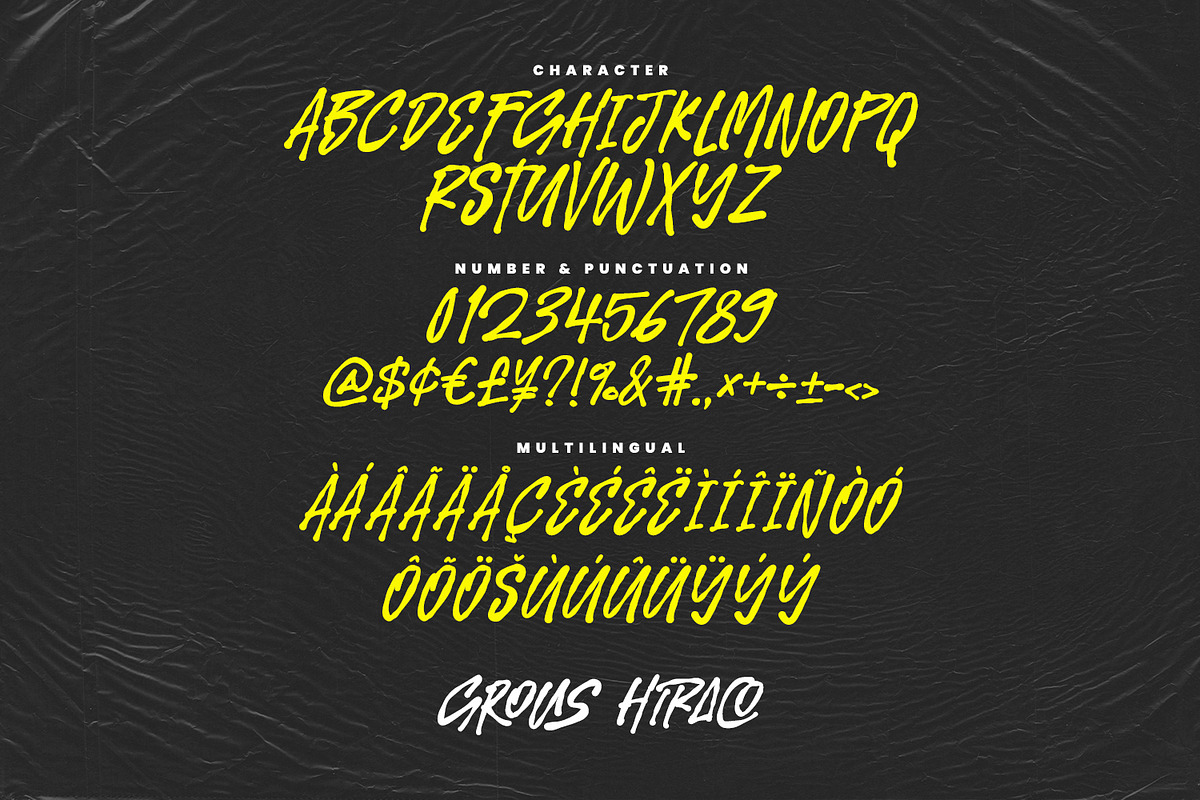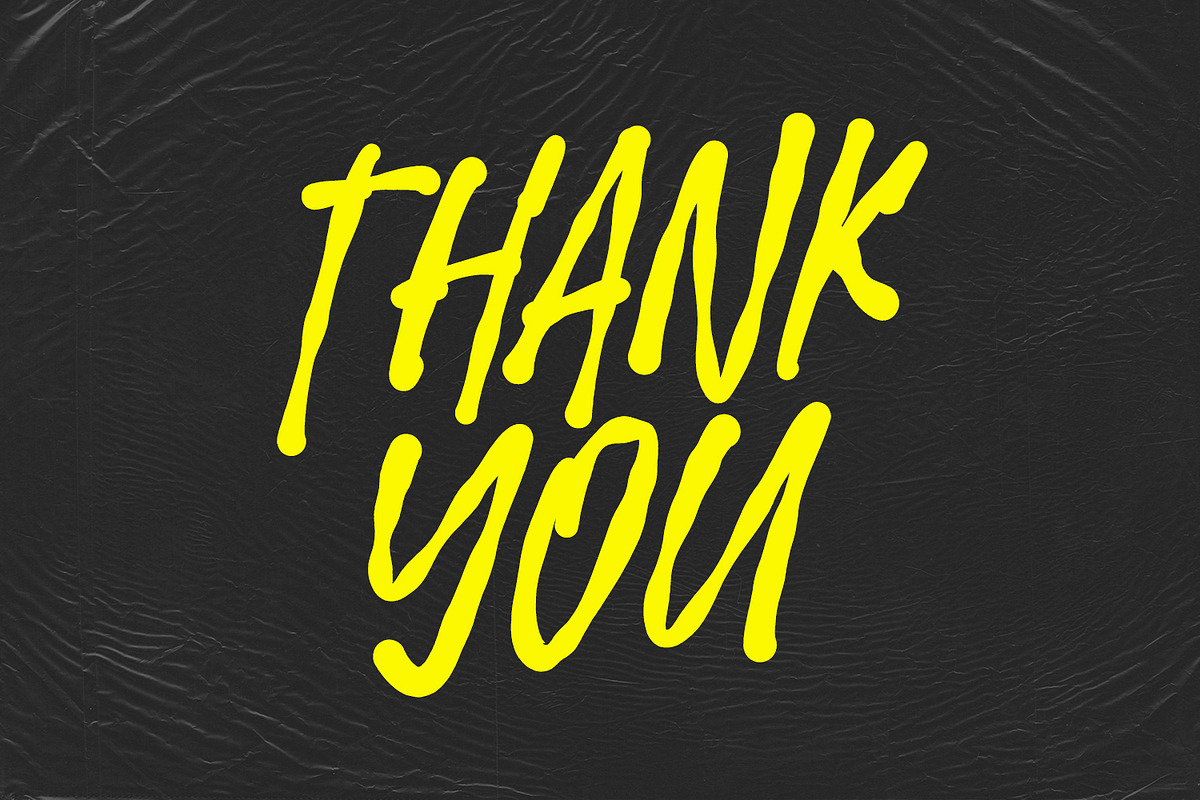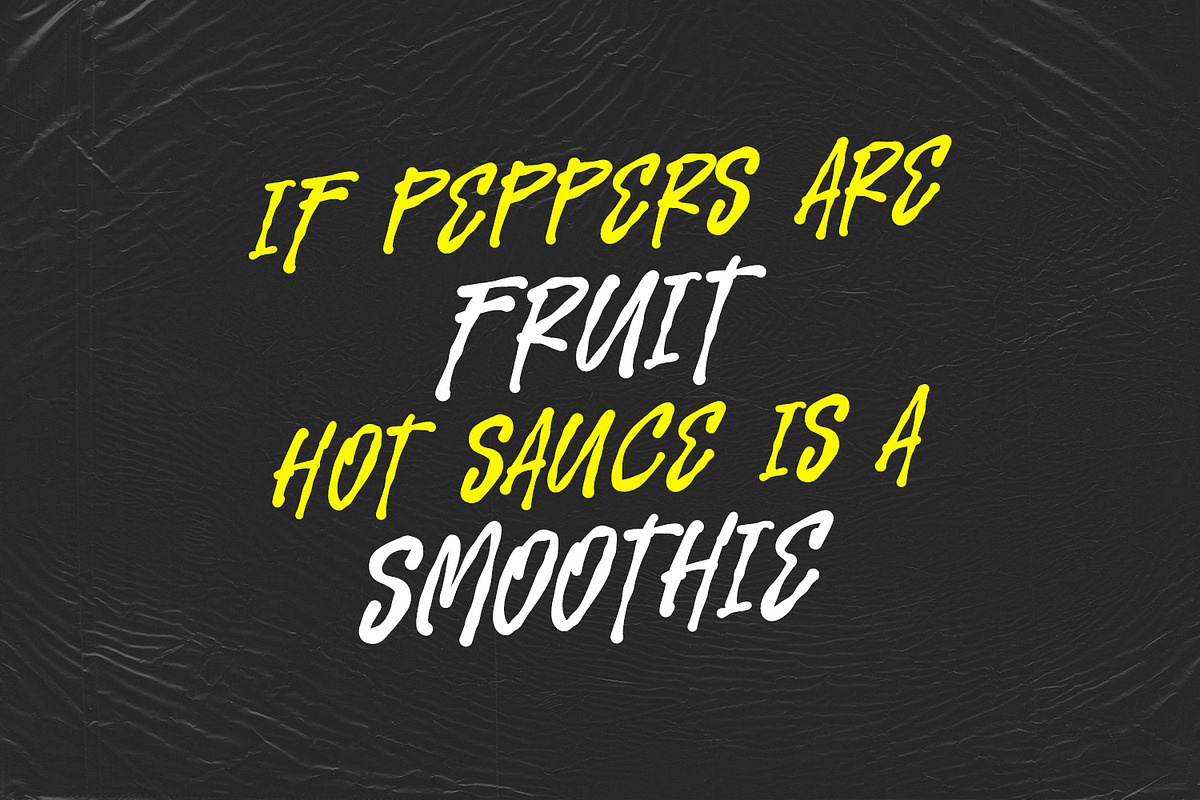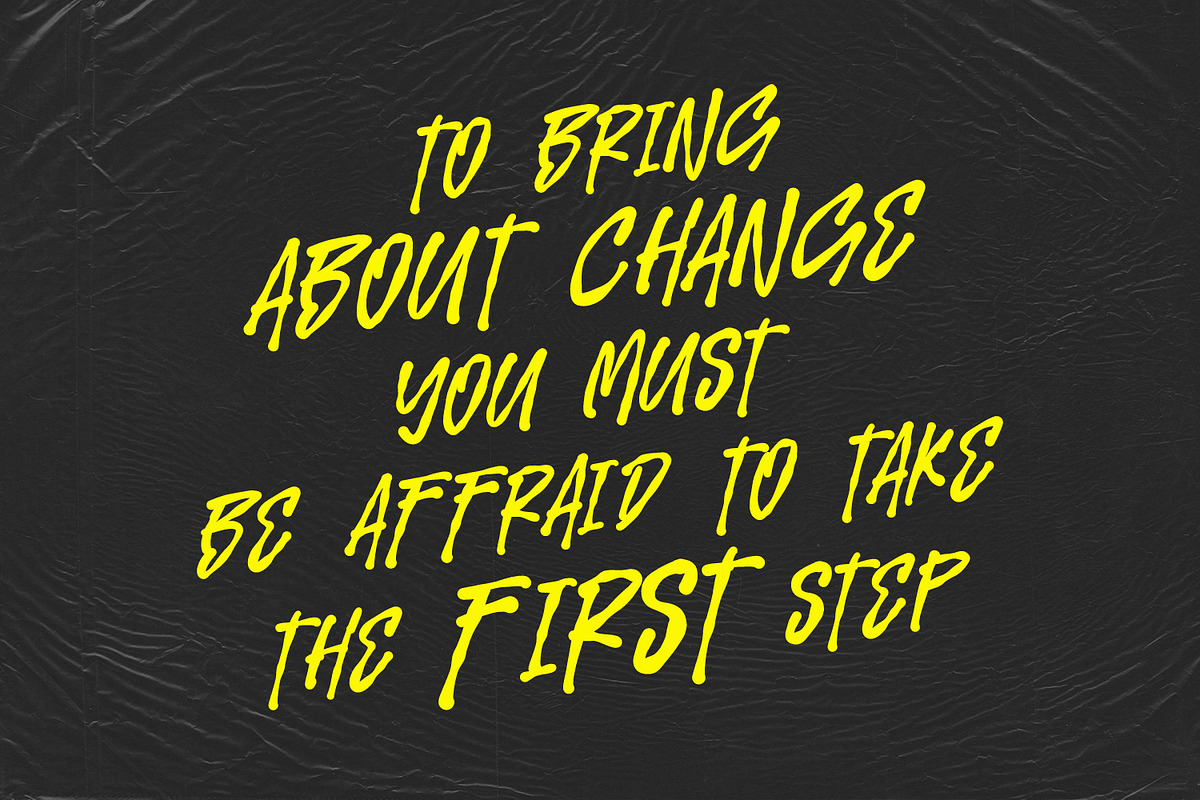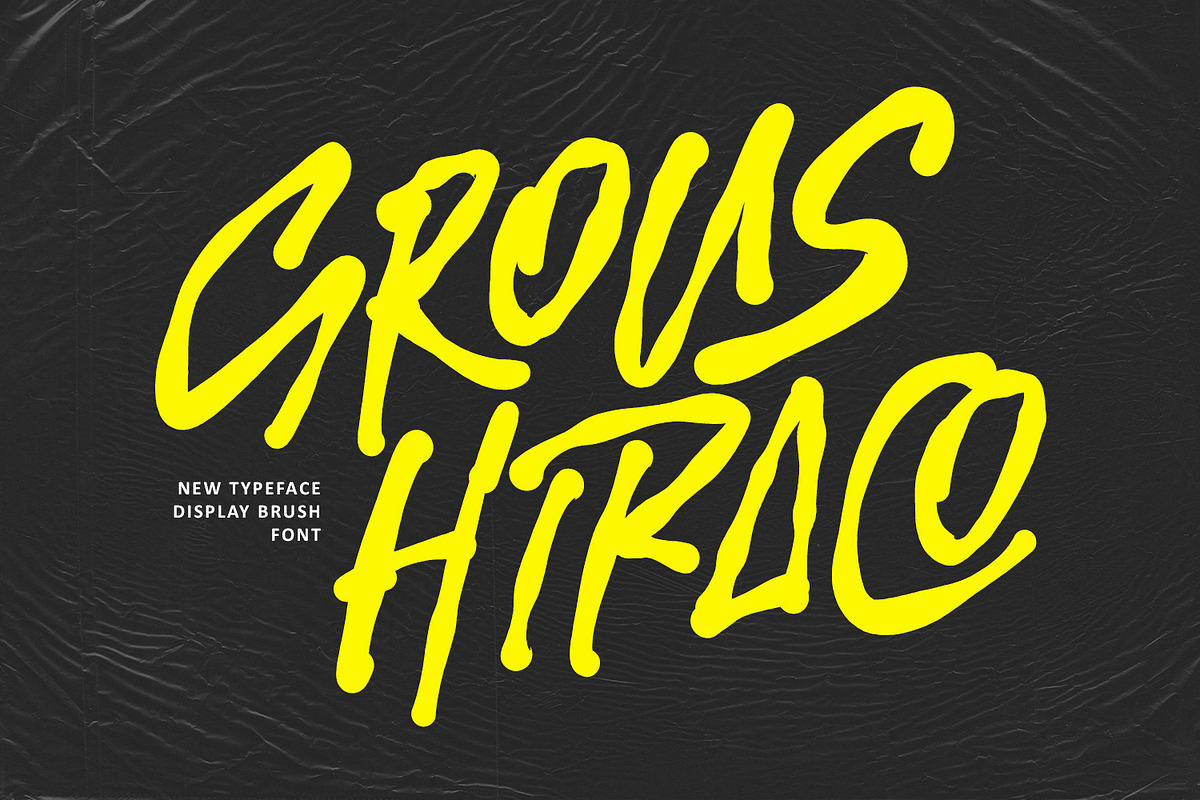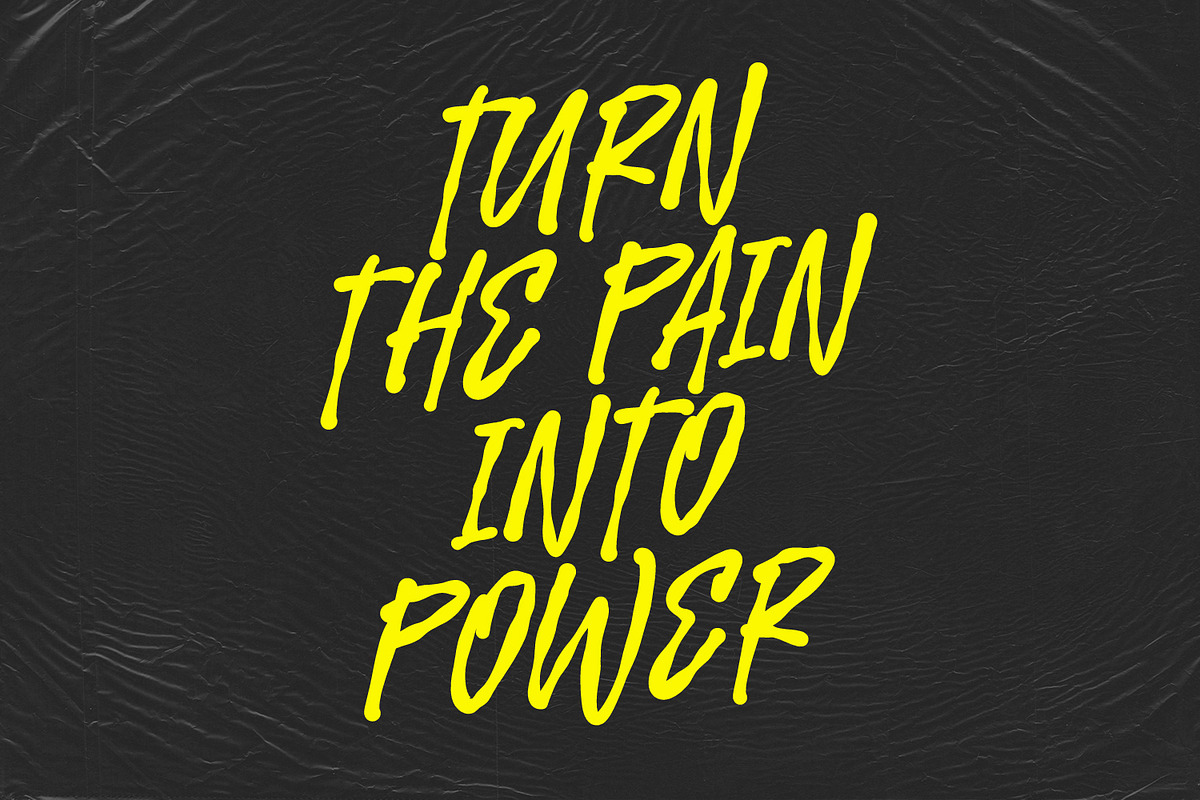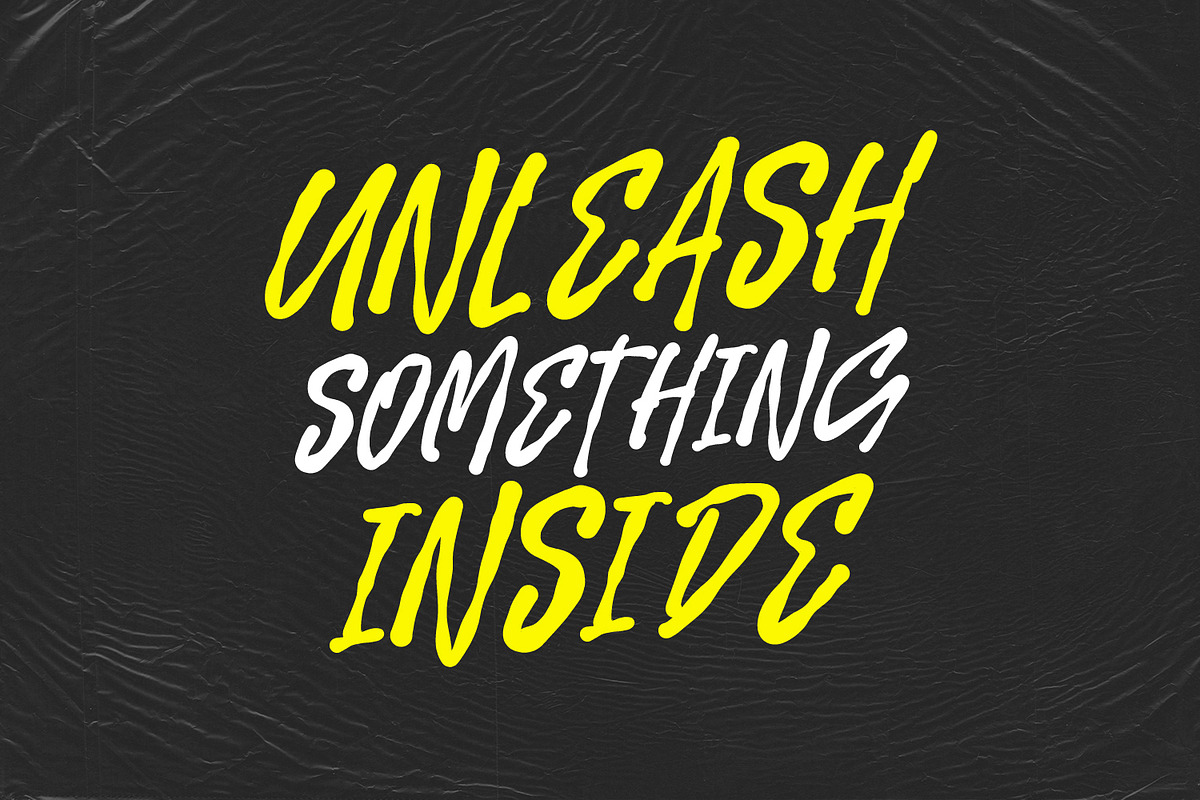
Grous Hiraco Power Display Brush Fon
Unleash the raw energy and dynamic boldness of Grous Hiraco, a fierce and captivating Display Brush Font. Inspired by hand painted signs and high impact street art, Grous Hiraco is designed to grab attention and make an unforgettable statement.
The vibrant, thick brush strokes give the font a genuine, handwritten feel, perfectly conveying messages of power, motivation, and fun. Whether you're designing for a sports brand, a music album, high energy, or bold motivational, this font delivers an instant shot of adrenaline.
Grous Hiraco is perfect for:
- Branding, logo design for energetic brands and startups.
- Advertising, headlines, banners, and social media promotions.
- Media, album, movie, and thumbnails.
- Motivational content, quote and inspiring graphics.
- Bold brush style, authentic, thick brush strokes for maximum impact.
- Dynamic flow, a natural, fast paced, and energetic handwritten feel.
- Multilingual support, includes accented characters for global reach.
- Complete set, contains uppercase, numbers, and punctuation.
- Ligatures and Alternates